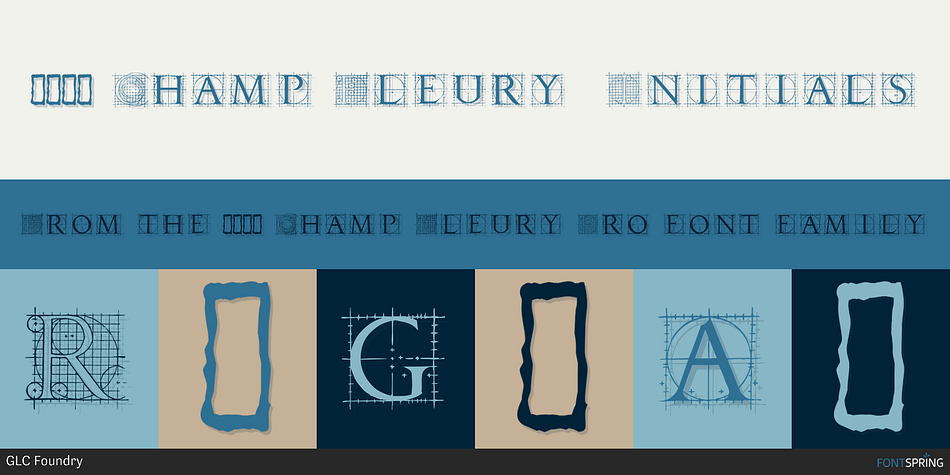
1529 Champ Fleury Initials
1529 Champ Fleury Pro is a monograms and historical font family. This typeface has two styles and was published by GLC Foundry.
In 1529, Geofroy Tory, French scholar, engraver, printer, publisher and poet, was publishing the well know so called "Champ Fleury", printed by Gilles de Gourmond, in Paris.
In 1529, Geofroy Tory, French scholar, engraver, printer, publisher and poet, was publishing the well know so called “Champ Fleury”, printed by Gilles de Gourmond, in Paris. It is a fully illustrated handbook where the author explains how to draw Roman characters. The font used for the text - an Humane/Jenson type - was not a very beautiful one, but rough and ready, but the book is well known for its Capital letters designs.
We are offering here the two complete historical type sets, and more: we have entirely redrawnn the lacked letters: J, U and W, Eth, Lslash, Thorn and Oslash in the two initial forms. The text font “1529 Champ Fleury Regular” is now containing all characters for West European (including Celtic), Baltic, East and Central European and Turkish language, and the Initial set “1529 Champ Fleury Initials” is containing two complete alphabets, with a very great effort to be as close as possible to the original pictures.